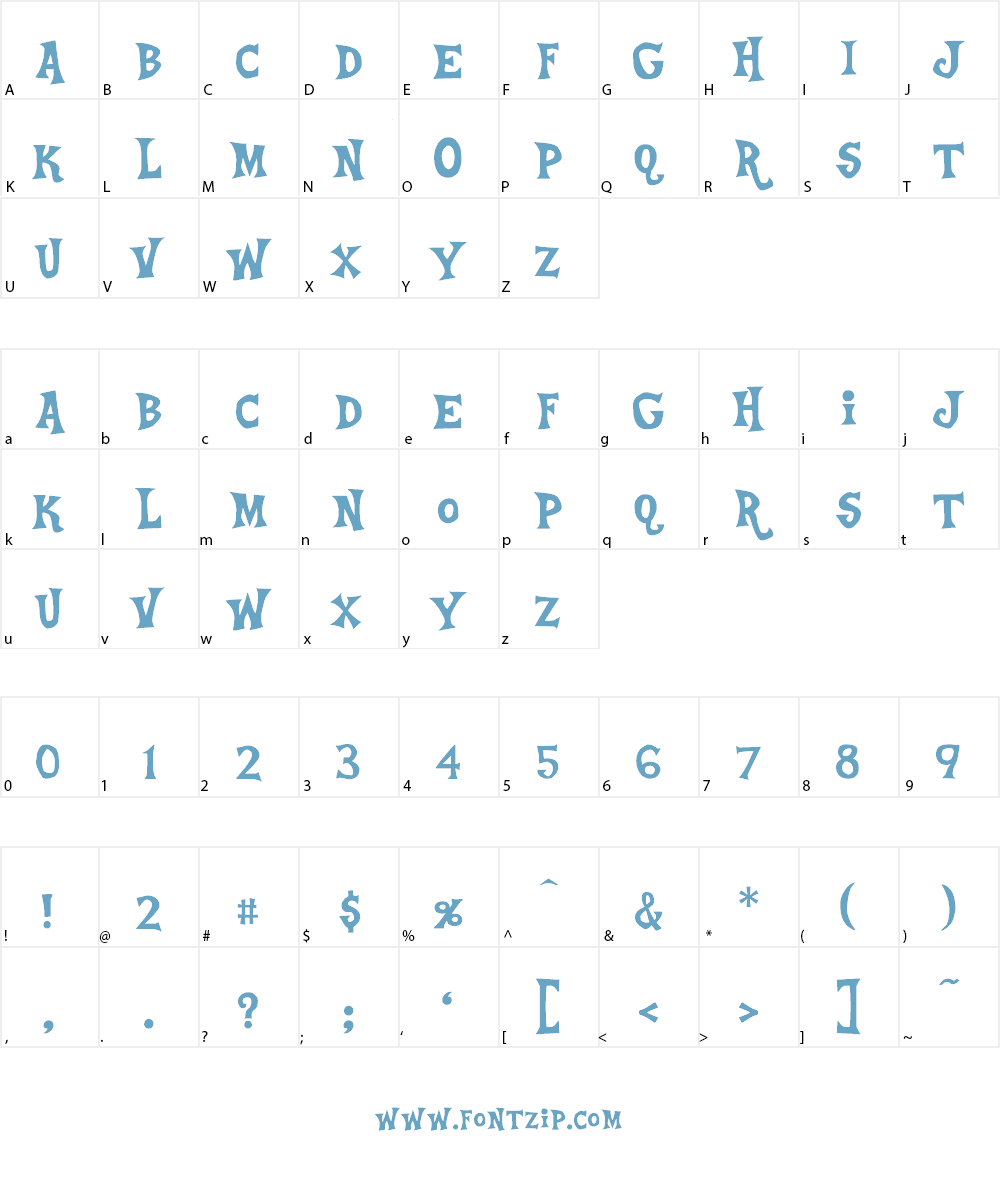
A typeface based on the font used for the main MLP:FiM series. Based on a PNG: http://web.archive.org/web/20130418041929/http://arch.413chan.net/ponyfont-(n1298218593850).png